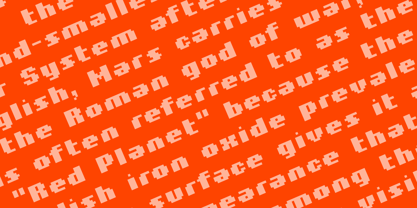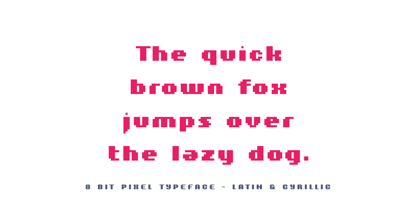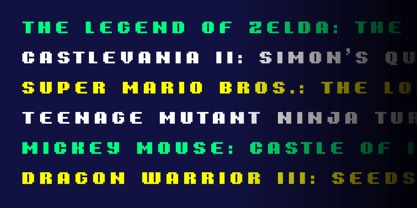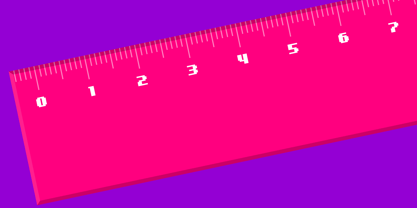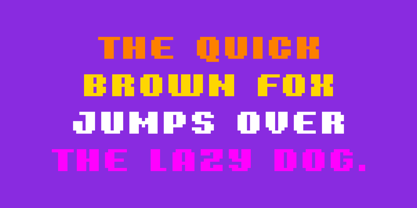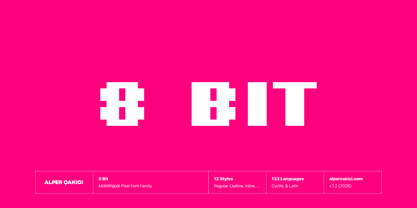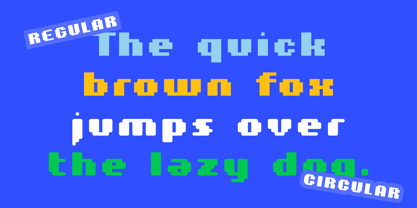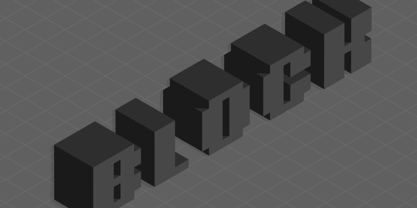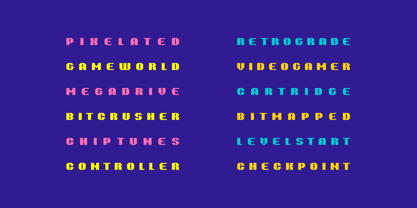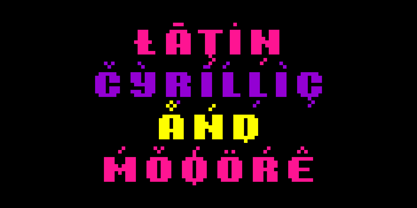
8 Bit
by AlperCakici
The 8 Bit Font Family was designed by Alper Çakıcı and published by AlperCakici. 8 Bit contains 12 styles and family package options. More about this family
8Bit is a bold, high-impact pixel typeface inspired by classic arcade screens and early computer graphics. Built on a clean modular grid, it features sharp geometry, rhythmic spacing, and an unmistakable retro character, while remaining versatile enough for contemporary design. From hard-edged arcade aesthetics to softer rounded pixel forms, 8Bit offers stylistic flexibility without losing its cohesive digital DNA. This typeface is ideal for video game titles, esports branding, posters, album covers, packaging, UI design, and any project that calls for nostalgic energy combined with modern clarity. The family includes 12 styles: 8Bit Regular, 8Bit Outline, 8Bit Inline, 8Bit Shadow, 8Bit Circular, 8Bit Circular Outline, 8Bit Circular Inline, 8Bit Circular Shadow, 8Bit Rounded, 8Bit Rounded Outline, 8Bit Rounded Inline, and 8Bit Rounded Shadow. 8Bit features extensive language support, including Latin and Cyrillic, making it suitable for international branding and global creative projects. Whether you’re designing a retro-inspired identity or crafting bold digital visuals, 8Bit delivers pure pixel personality.
Designers: Alper Çakıcı
Foundry: AlperCakici